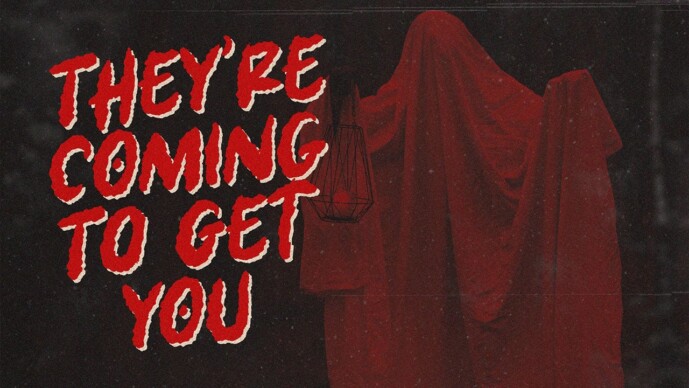
Creepy Silence Font
Creepy Silence Font is a raw handwritten font that captures a terrifying and creepy atmosphere. It is perfect for creating movie posters, especially for thrillers and horror movies. With its unique uppercase and lowercase letters, this font will make your designs more eerie and captivating. Its adaptability makes it a valuable choice for various design projects and it supports multiple languages. This could be your favorite font for Halloween and beyond!